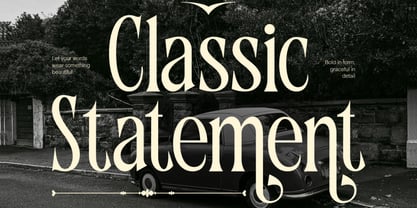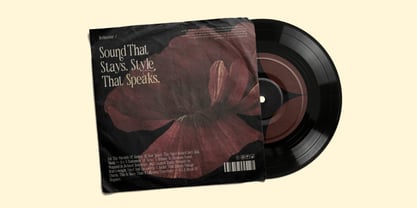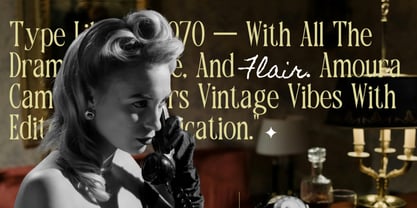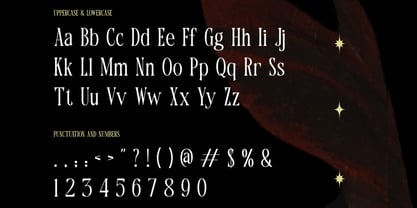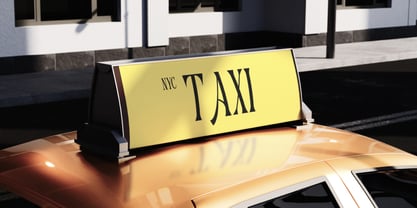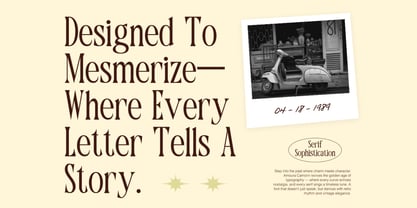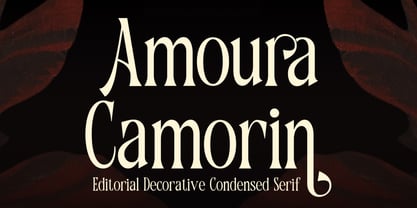
Amoura Camorin
by Rasio Studio
The Amoura Camorin Font Family was designed by Fajar Indra and published by Rasio Studio. Amoura Camorin contains 1 styles. More about this family
Amoura Camorin Editorial Decorative Condensed Serif is a refined serif typeface that blends elegance with dramatic artistry. Featuring narrow proportions, sweeping curves, and distinctive terminals, it channels the expressive beauty of vintage editorial lettering with a modern decorative twist. Its sophisticated form and bold rhythm make it a perfect choice for fashion branding, editorial layouts, and luxurious product packaging. Includes uppercase and lowercase letters, numerals, and punctuation characters. Amoura Camorin adds an air of drama and sophistication to any creative project — ideal for designers who value timeless elegance and striking visual identity.